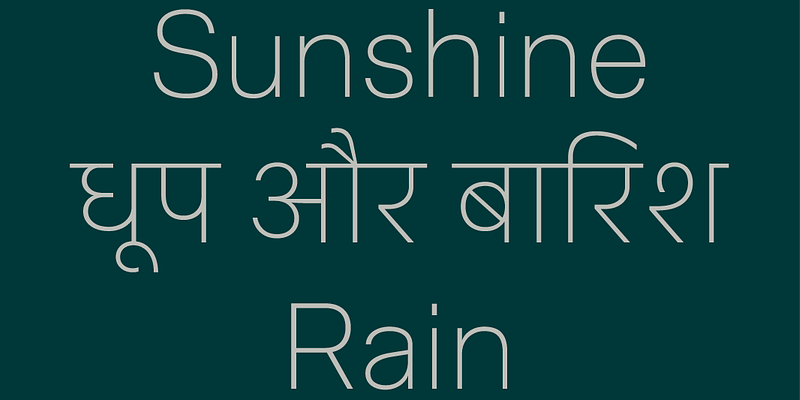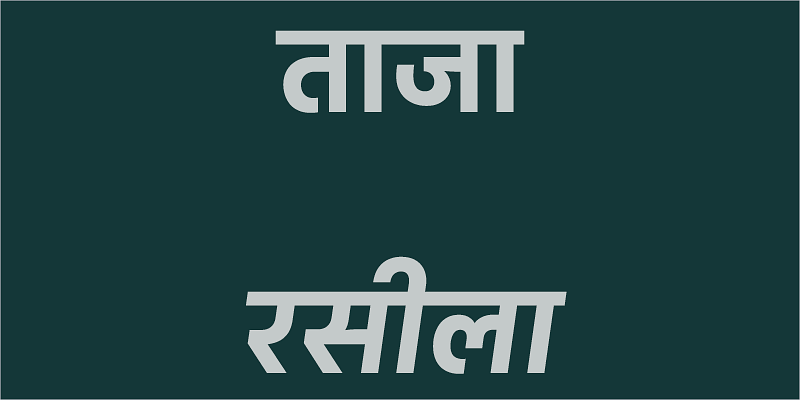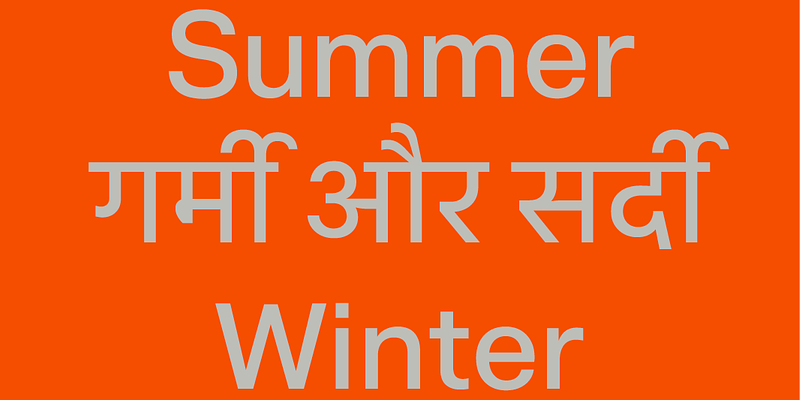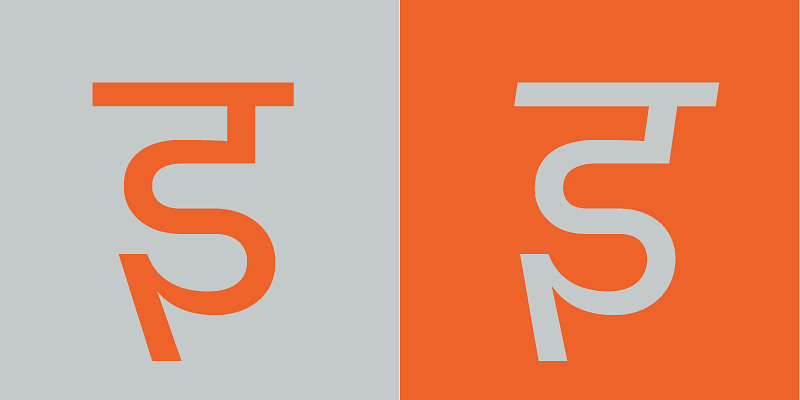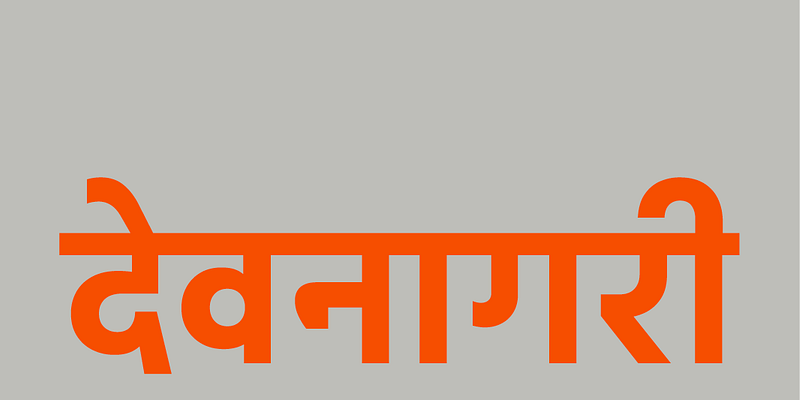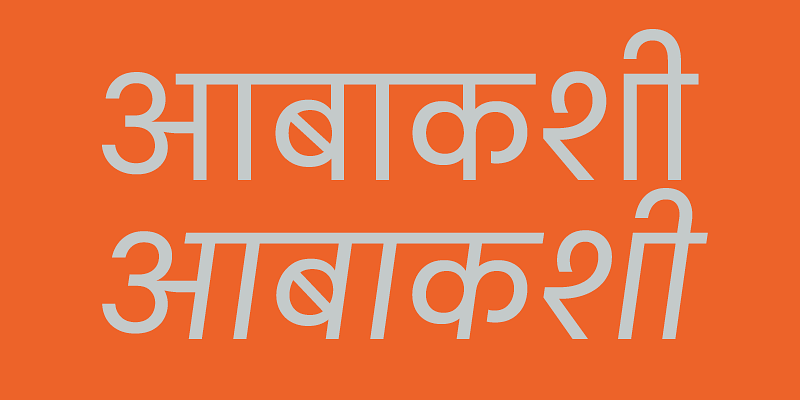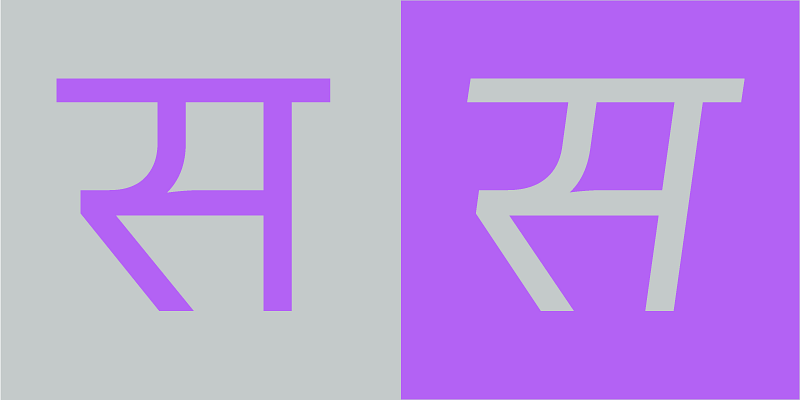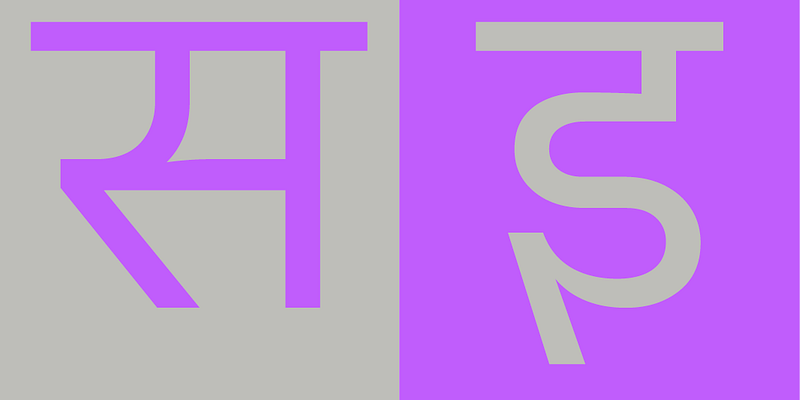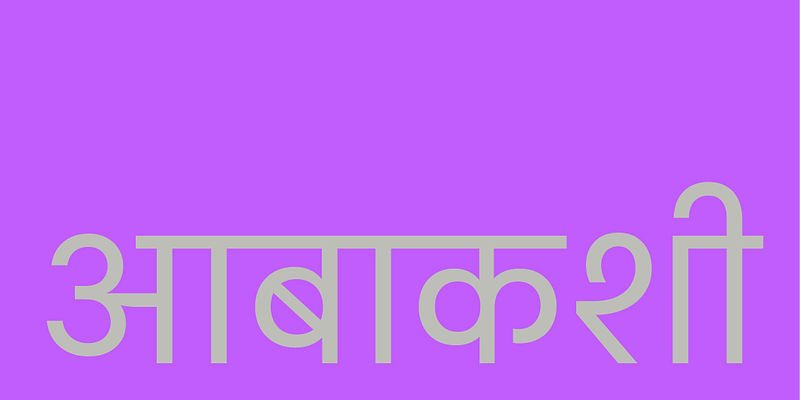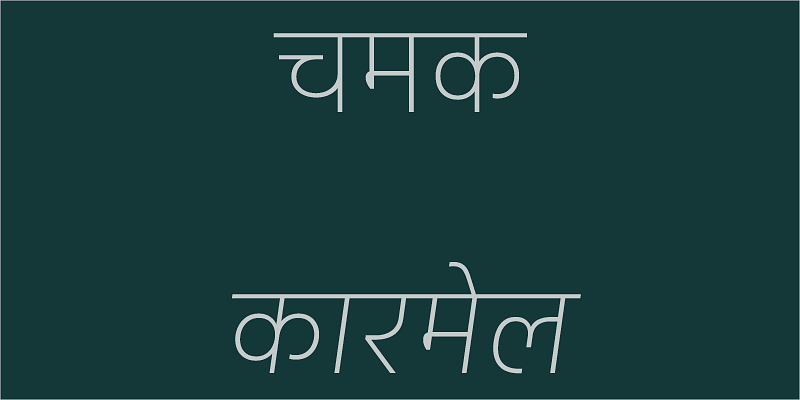
Robust low contrast Devanagari and Latin font family.
Universal Thirst
Universal Thirst is a type foundry that specialises in Indic and Latin scripts. It was set up in 2016 by designer and engineer duo Gunnar Vilhjálmsson and Kalapi Gajjar, who draw on their contrasting visual heritage to offer a unique, dual perspective on type.